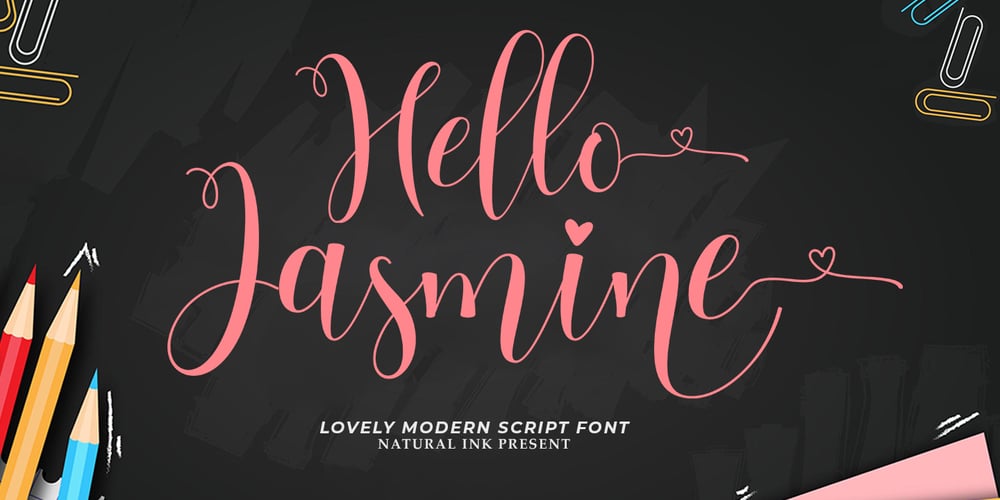
Hello Jasmine
Hello Jasmine font
Hello Jasmine Font Family was designed by Arif Gunawan and published by Natural Ink. Hello Jasmine contains 1 styles and family package options. Hello Jasmine Script is a modern calligraphy design. This font is casual and beautiful with swash. Can be used for various purposes. such as logos, product packaging, wedding invitations, branding, headlines, signage, labels, signatures, book covers, posters, quotes, and more.Hello Jasmine Script includes OpenType features, ligatures and international support for most Western languages. To activate the OpenType Stylistic alternative, you need a program that supports OpenType features such as Adobe Illustrator CS, Adobe Indesign & CorelDraw X6-X7, Microsoft Word 2010 or newer versions. How to access all alternative characters using Adobe Illustrator:https://www.youtube.com/watch?v=XzwjMkbB-wQHello Jasmine Script is coded with PUA Unicode, which allows full access to all additional characters without having to design special software. Mac users can use the Font Book, and Windows users can use Character Map to view and copy one of the additional characters to insert into your favorite text editor / application. How to access all alternative characters, using Windows Character Map with Photoshop:https://www.youtube.com/watch?v=Go9vacoYmBwIf you need help or have questions, please let me know. I am happy to help.